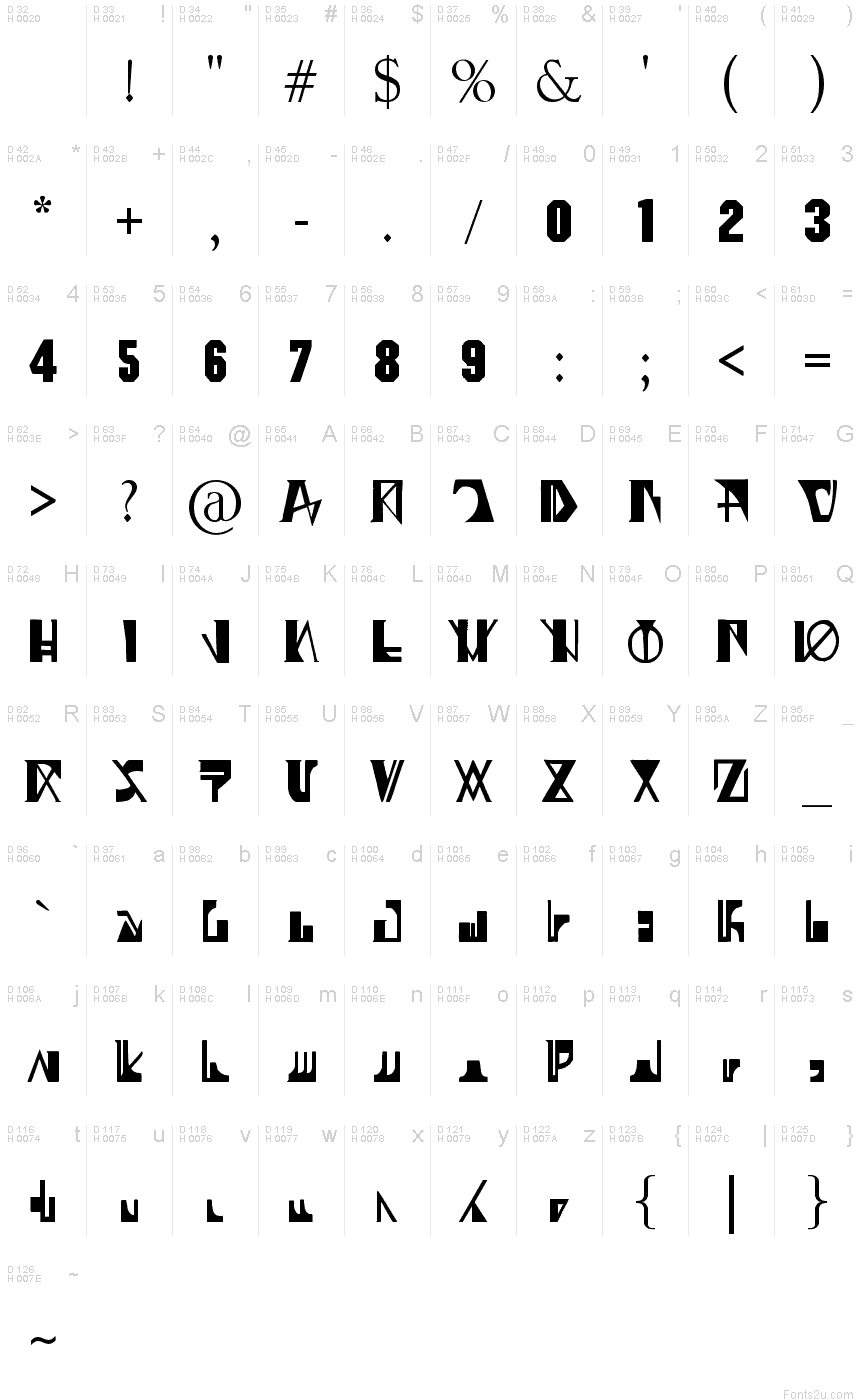
07-GHOST Zaiphon is a free decorative display font with towering, tightly packed forms, severe cut-paper silhouettes, and a mix of monolithic strokes and razor-like diagonals that stretch beyond familiar proportions. Broad black masses meet needle-thin joins, sharp wedges, and abrupt gaps.
As a theatrical title treatment, it brings an ominous, coded quality to supernatural game covers, anime-inspired posters, and dark electronic music artwork centered on shadowy worlds or cryptic machinery. The fractured silhouettes also fit printed apparel graphics and event branding, where the lettering can become a row of strange architectural signs or fragments of unknown machinery rather than ordinary type.